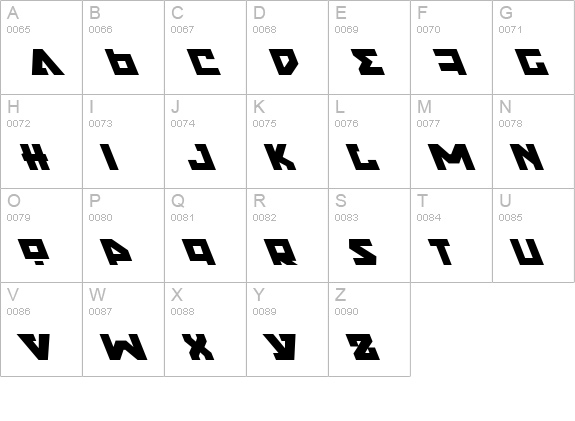
Introducing Nyet Leftalic, a modern and stylish font that exudes sophistication and elegance. Its sleek and slanted design adds a touch of flair to any project, making it perfect for use in branding, advertising, and more. Nyet Leftalic strikes the perfect balance between professionalism and creativity, making it a versatile choice for a wide range of design applications. The best part? Nyet Leftalic is completely free to download at FontsMarket.com. Whether you're a seasoned designer looking for a fresh new font to add to your collection or a beginner just starting out, Nyet Leftalic is the perfect choice. Don't miss out on this incredible opportunity to elevate your designs with this stunning font. Download Nyet Leftalic today and let your creativity soar!